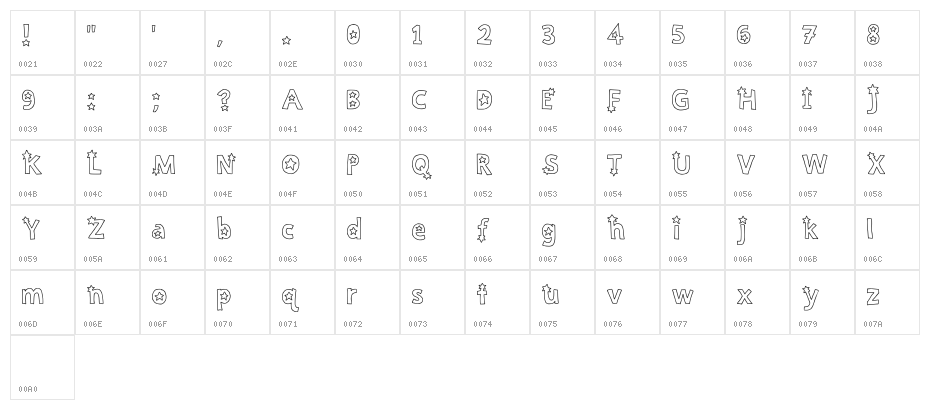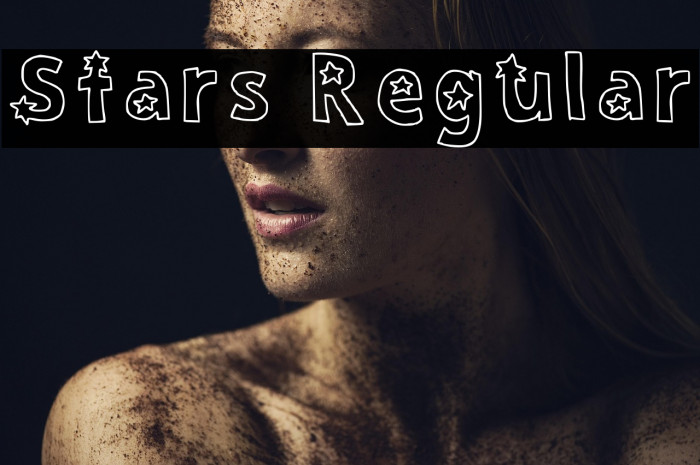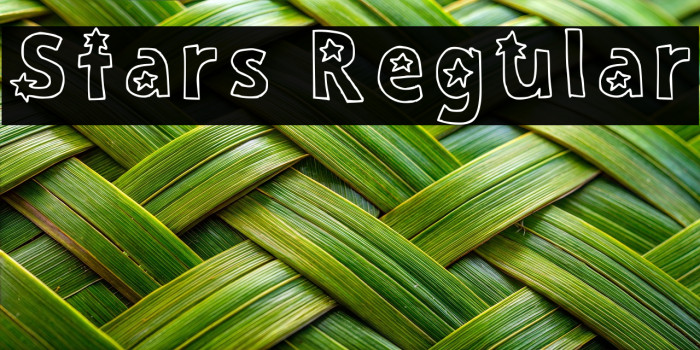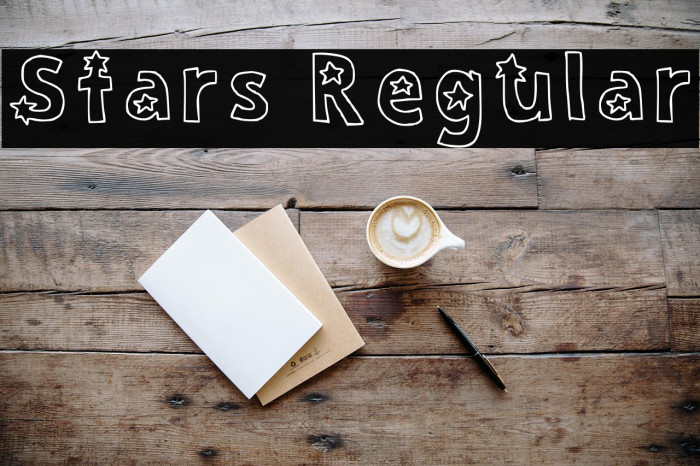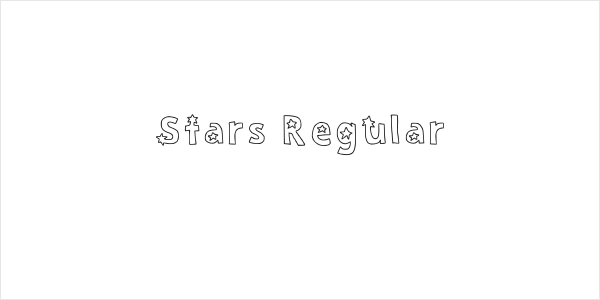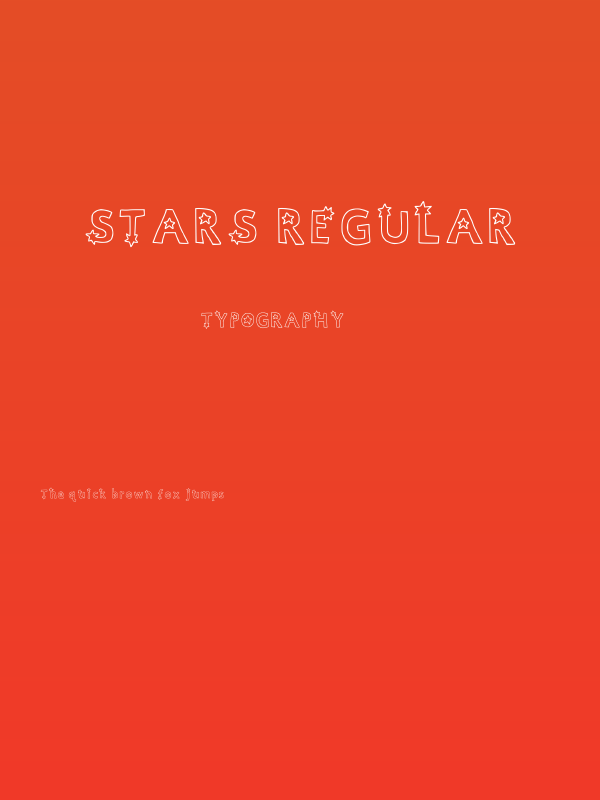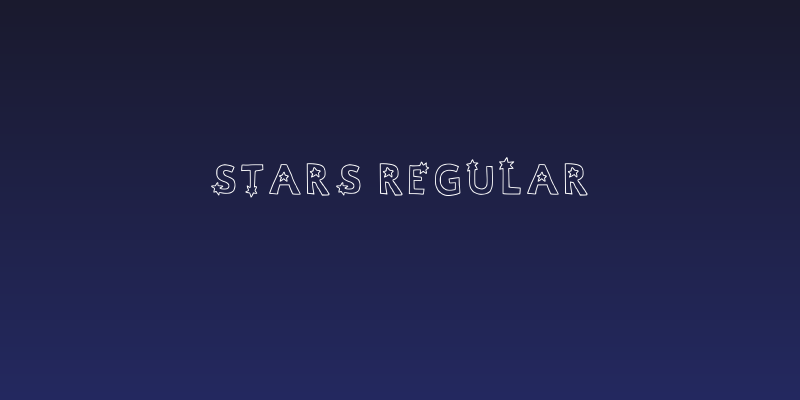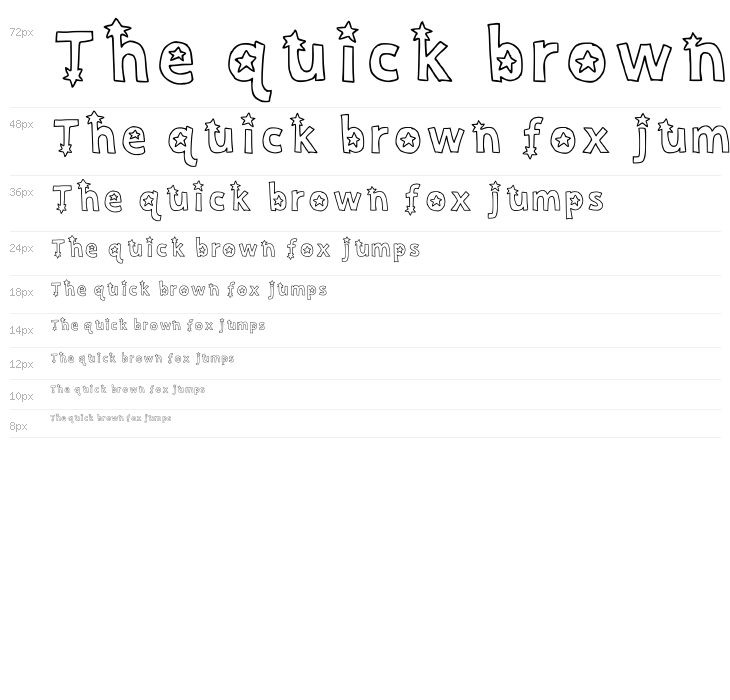
Stars Regular Font
Stars Regular Description
This playful and whimsical font features a unique design where each character is adorned with star motifs. The letters are outlined, giving them a bold and striking appearance, while the stars add a decorative and fun element. The uppercase and lowercase letters maintain a consistent style, with rounded edges and a slightly irregular shape that enhances the playful nature of the font. Numbers and special characters follow the same design principles, ensuring a cohesive look across all elements. This font is perfect for projects that require a touch of creativity and fun.
| Proposed Projects | Ideal for children's book covers, party invitations, playful branding, and creative posters. |